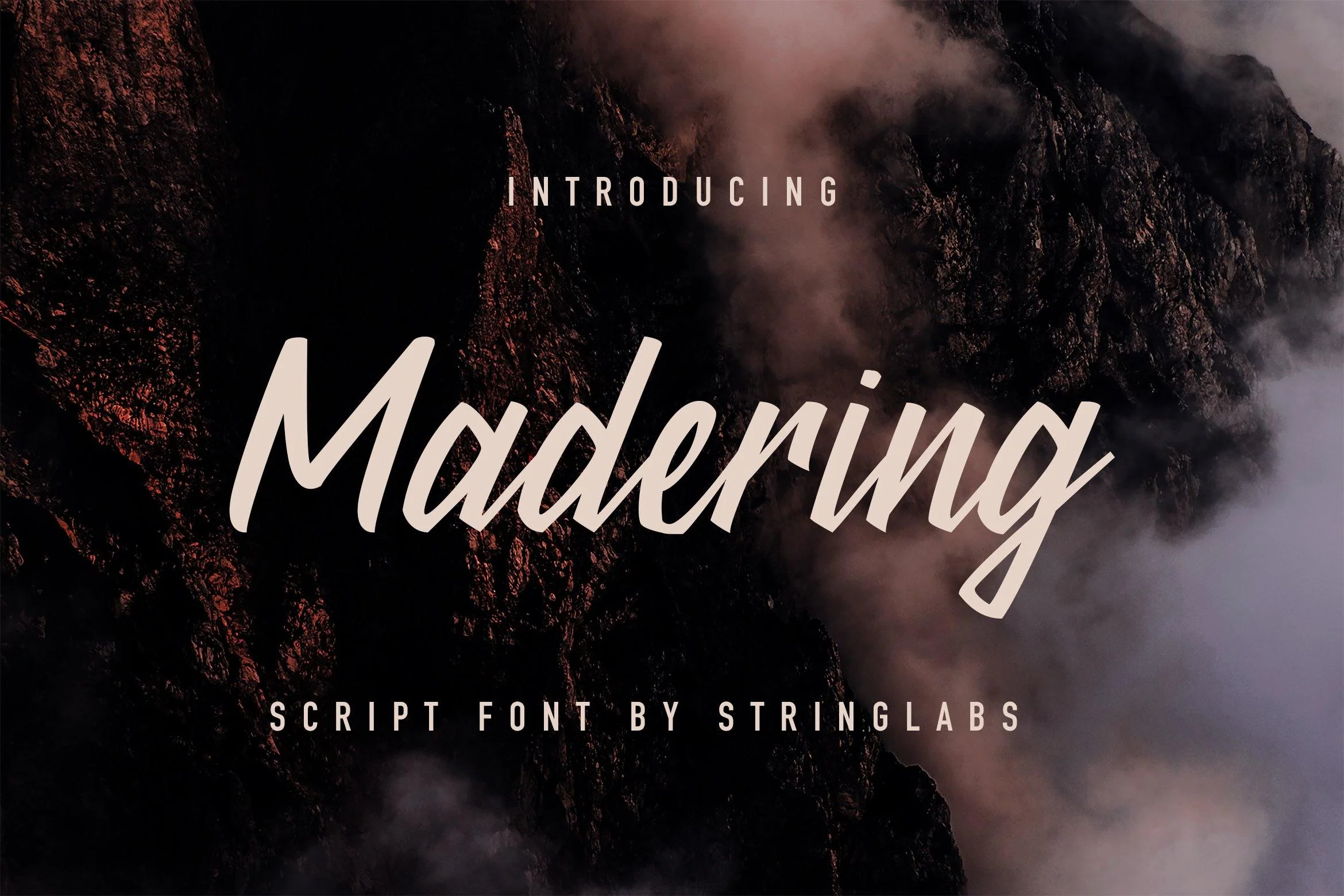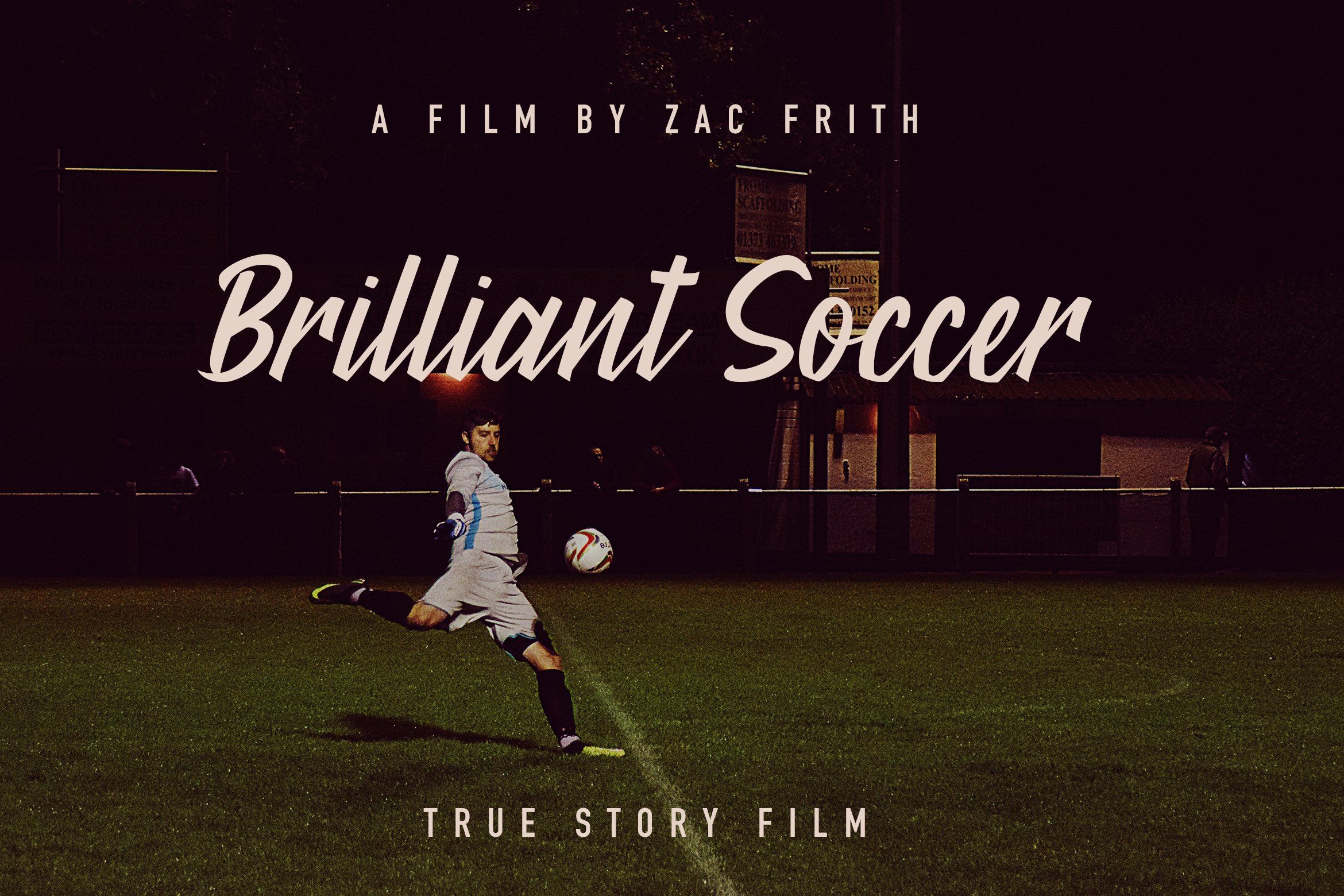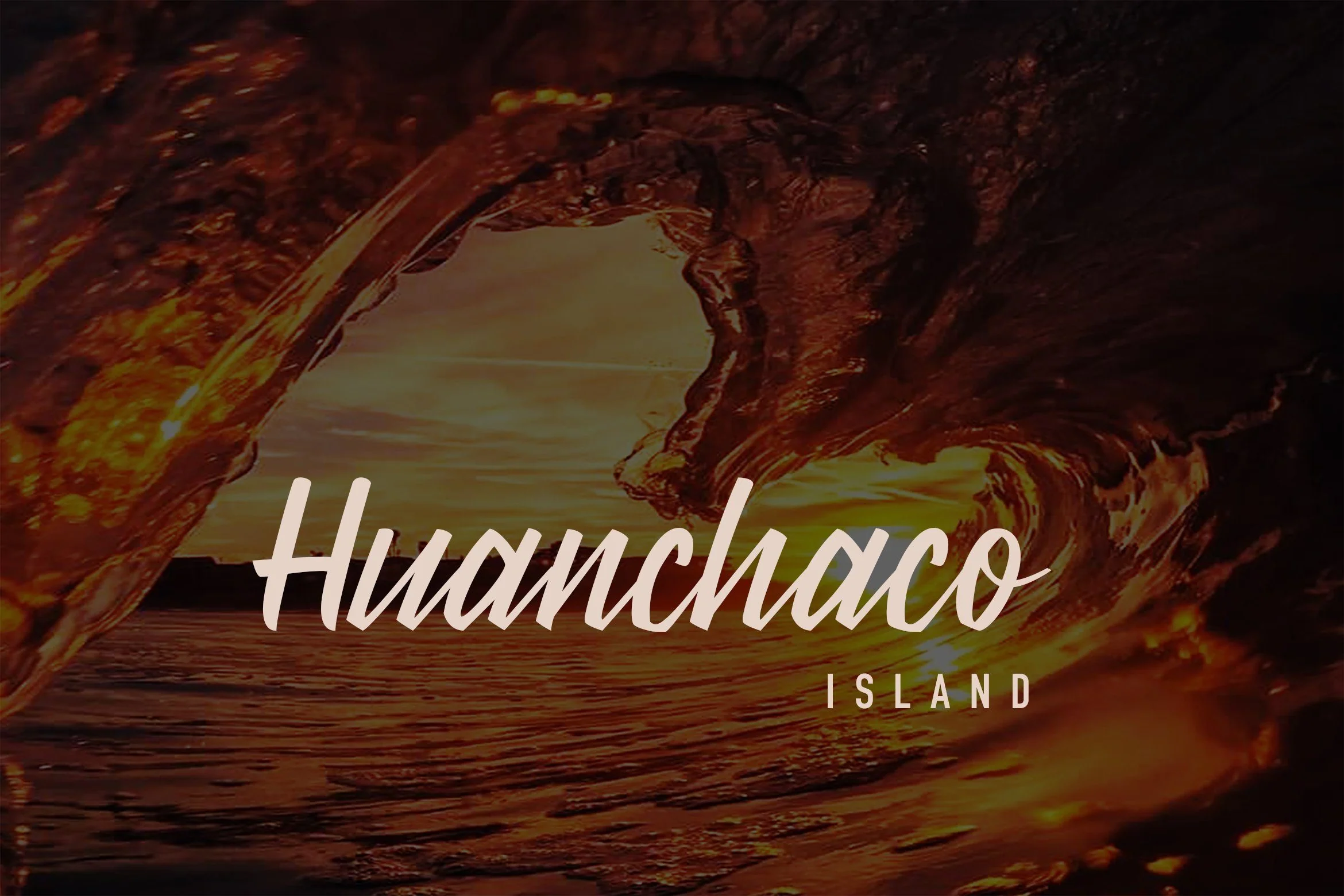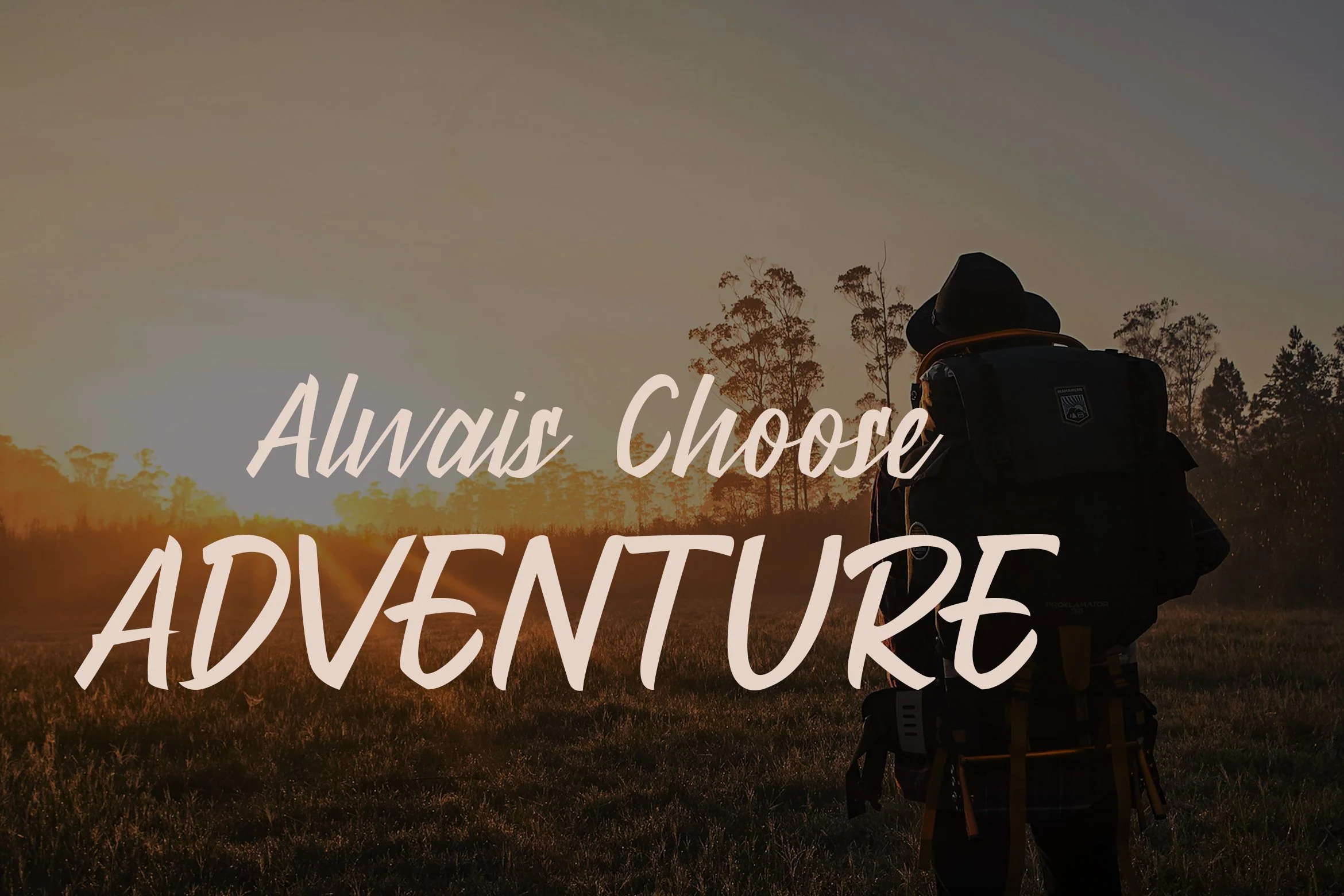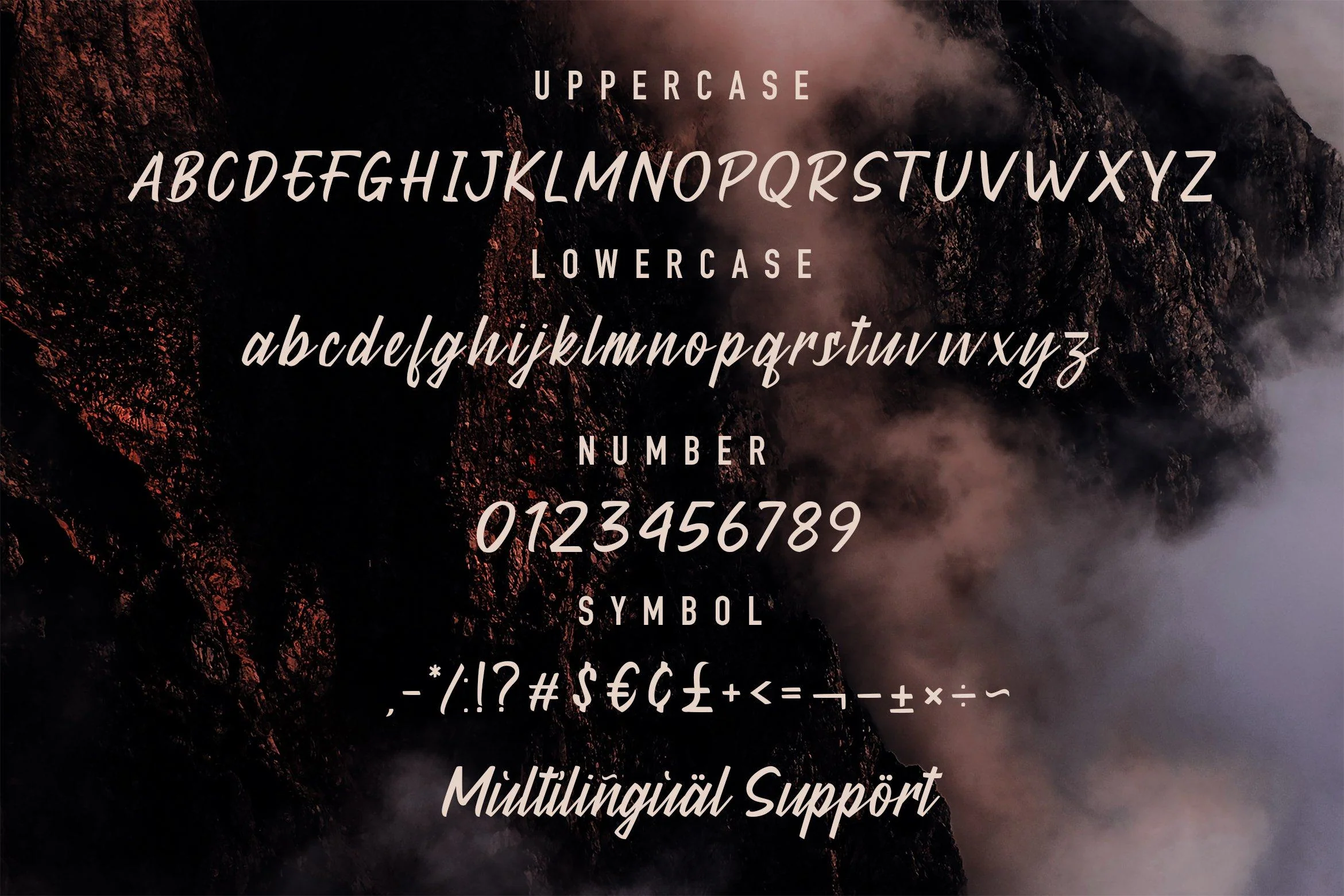
Madering - Classy Script Font
Introducing Madering - Classy Script Font
This Font can be used for any variety of purposes, such as: Â
Signature, Photography, Wedding Ceremony, Invitation, Packaging, Logo Type, Branding Design, Fashion and also can be used for Business purpose.
This Font Template contains Modern, Elegant, Creative, Professional and Unique Concept.
Introducing Madering - Classy Script Font
This Font can be used for any variety of purposes, such as: Â
Signature, Photography, Wedding Ceremony, Invitation, Packaging, Logo Type, Branding Design, Fashion and also can be used for Business purpose.
This Font Template contains Modern, Elegant, Creative, Professional and Unique Concept.